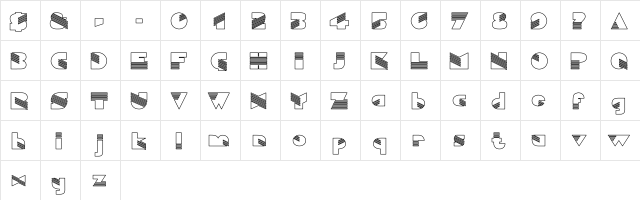
Sinaloa Hollow Regular
Design Context for Sinaloa Hollow Typeface
Sinaloa Hollow is a composed and adaptable typeface that performs quietly and consistently across a wide range of design contexts.